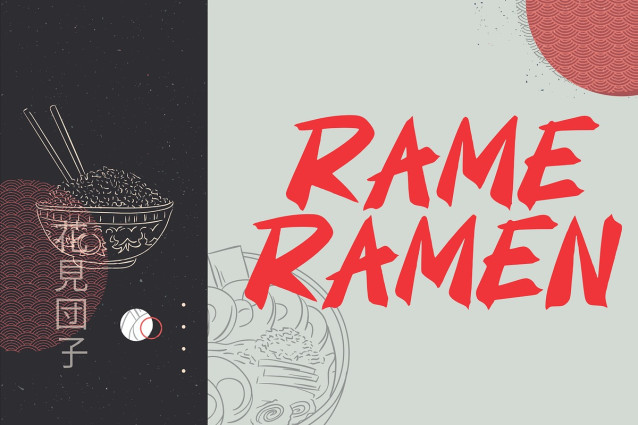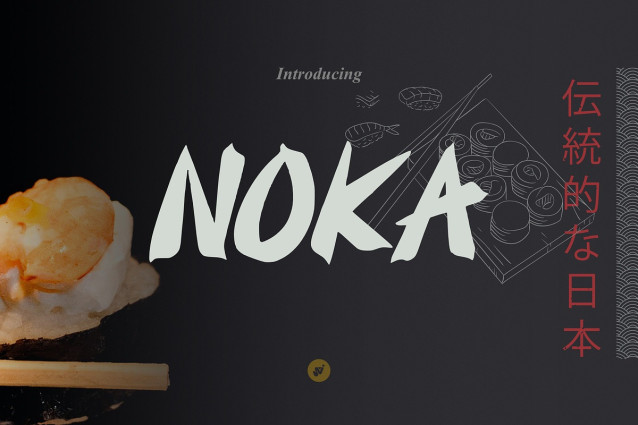
Noka Brush Font
Noka Brush Font – This brush font is inspired by the traditional Japanese calligraphy art (shodō), presenting a strong, dynamic, and authentic impression. The thick and expressive brushstroke style reflects the spirit of Japanese culture full of character and courage.